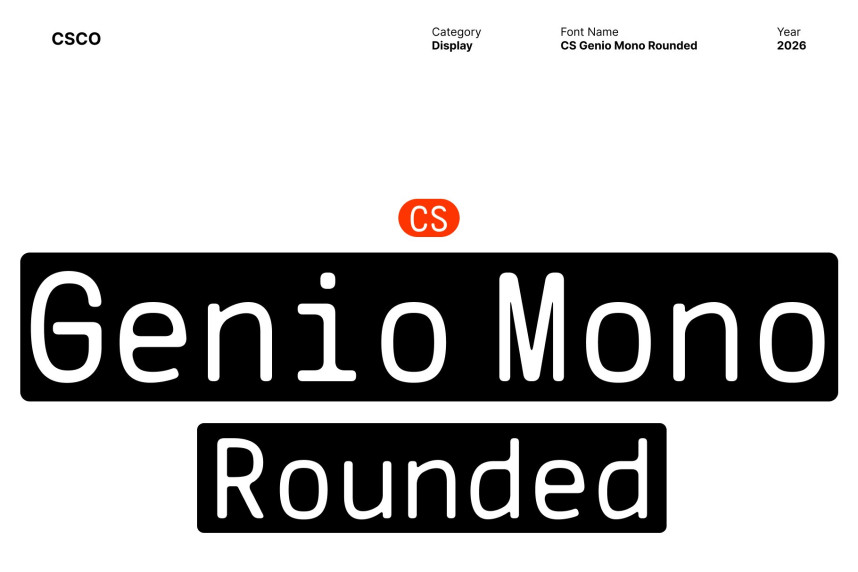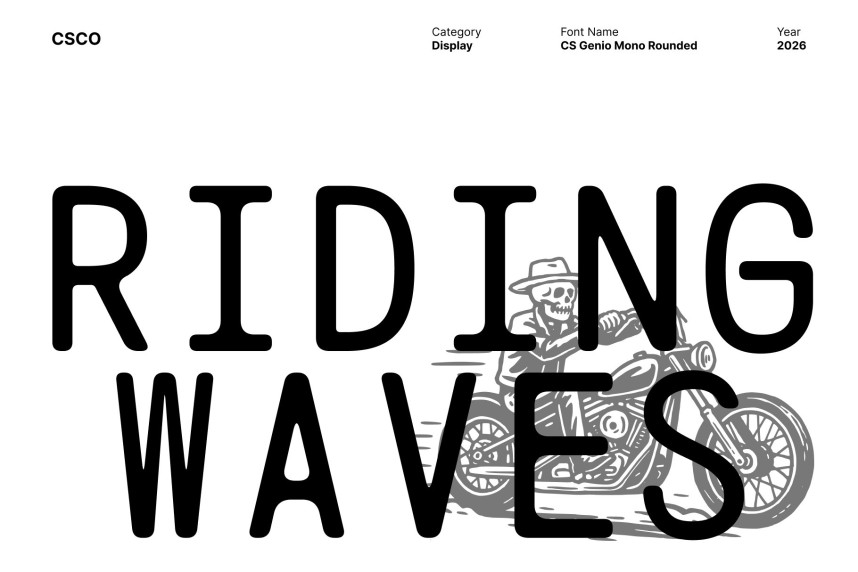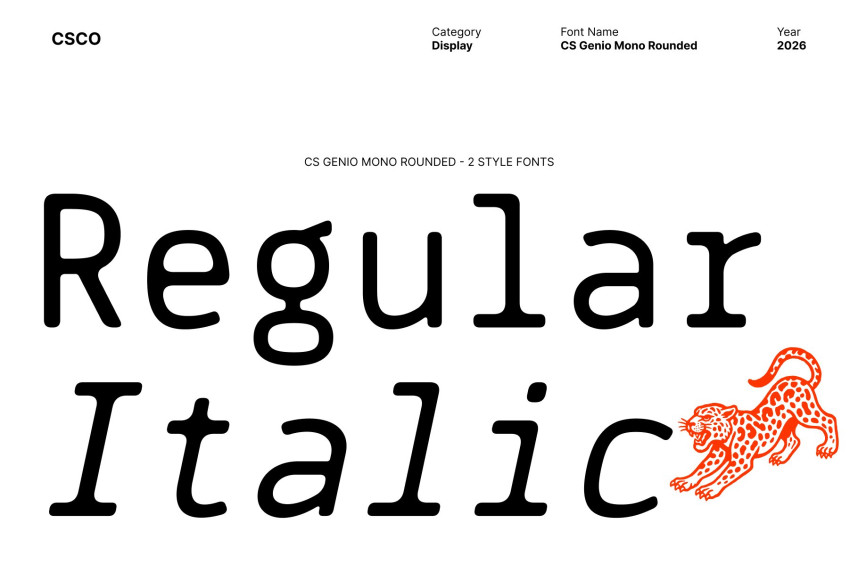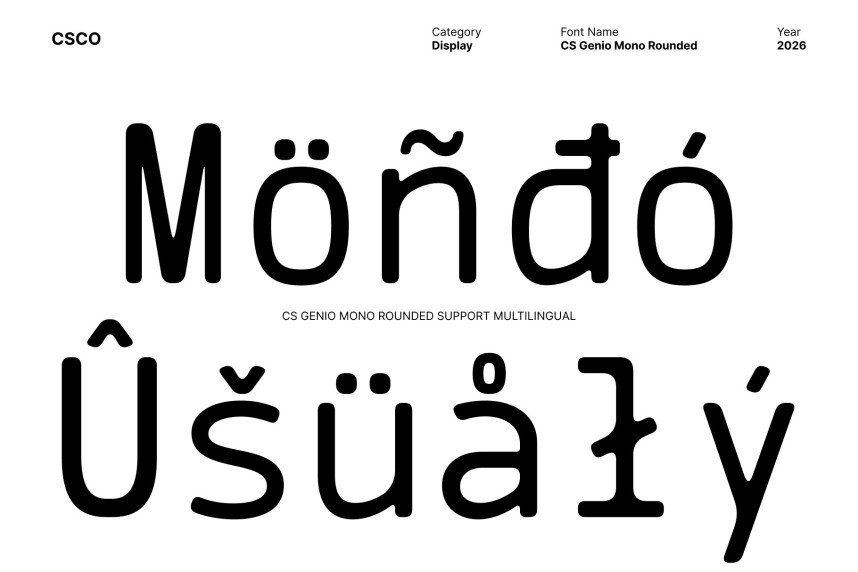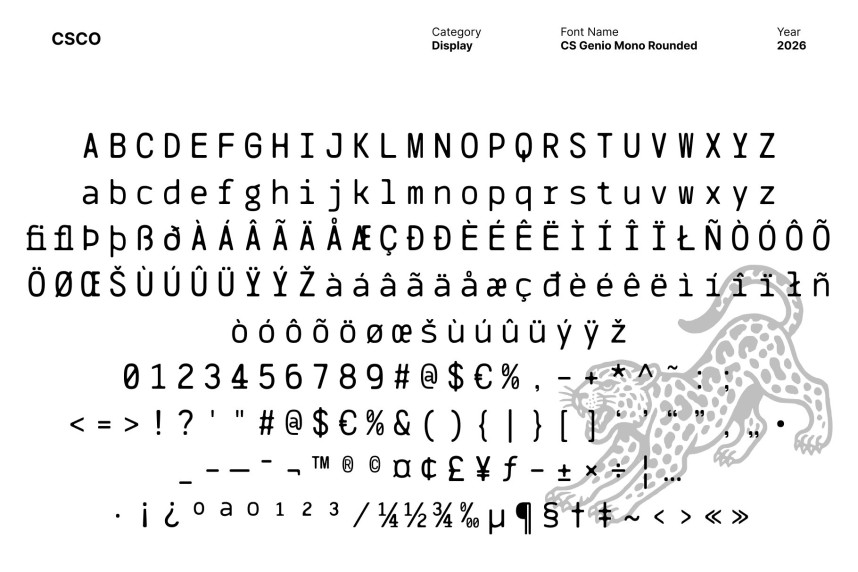
CS Genio Mono Rounded Font
CS Genio Mono Rounded Font. Monospaced Typeface: Essential Simplicity with a Friendly Modern Feel Clean, Uncomplicated Design. This is a modern monospaced sans serif typeface that emphasizes essential simplicity and clarity. Its clean, uncomplicated structure ensures strong readability while delivering a balanced and contemporary visual presence.